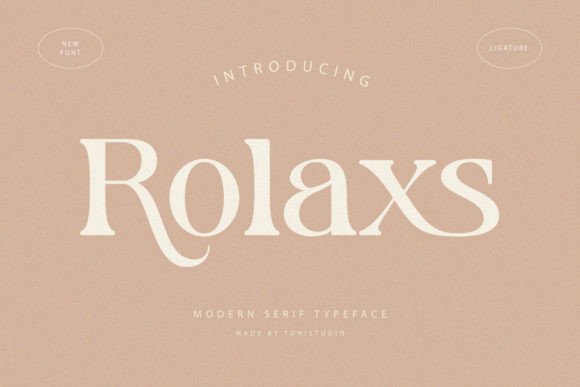
Step into the timeless elegance of Rolaxs Font, a captivating serif font family designed to infuse your creative projects with a touch of vintage charm. Inspired by the golden era of signages and logos, Rolaxs exudes a sense of nostalgia that will transport you back in time.
Crafted with meticulous attention to detail, each letterform in Rolaxs is a work of art, featuring delicate serifs and sweeping curves that dance across the page. Its bold and confident strokes command attention, while its dynamic spirit adds a touch of playfulness to your designs.
With Rolaxs, you can elevate your headlines, logotypes, and branding materials to new heights. Its strong personality and unwavering charm will make your designs stand out from the crowd, leaving a lasting impression on your audience.
Whether you're a seasoned designer or just starting out, Rolaxs is the perfect font to add a touch of sophistication and timeless beauty to your projects. Its versatility knows no bounds, making it ideal for a wide range of applications, from vintage-inspired logos and posters to elegant wedding invitations and social media graphics.